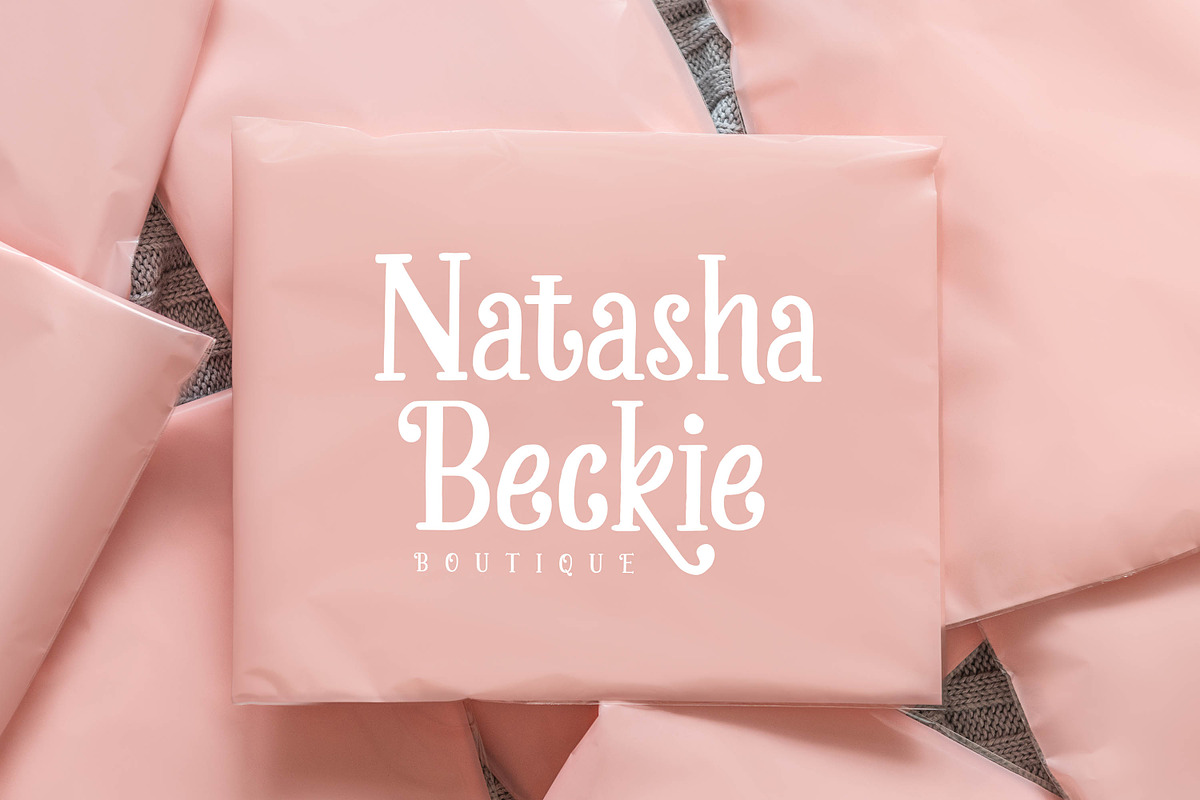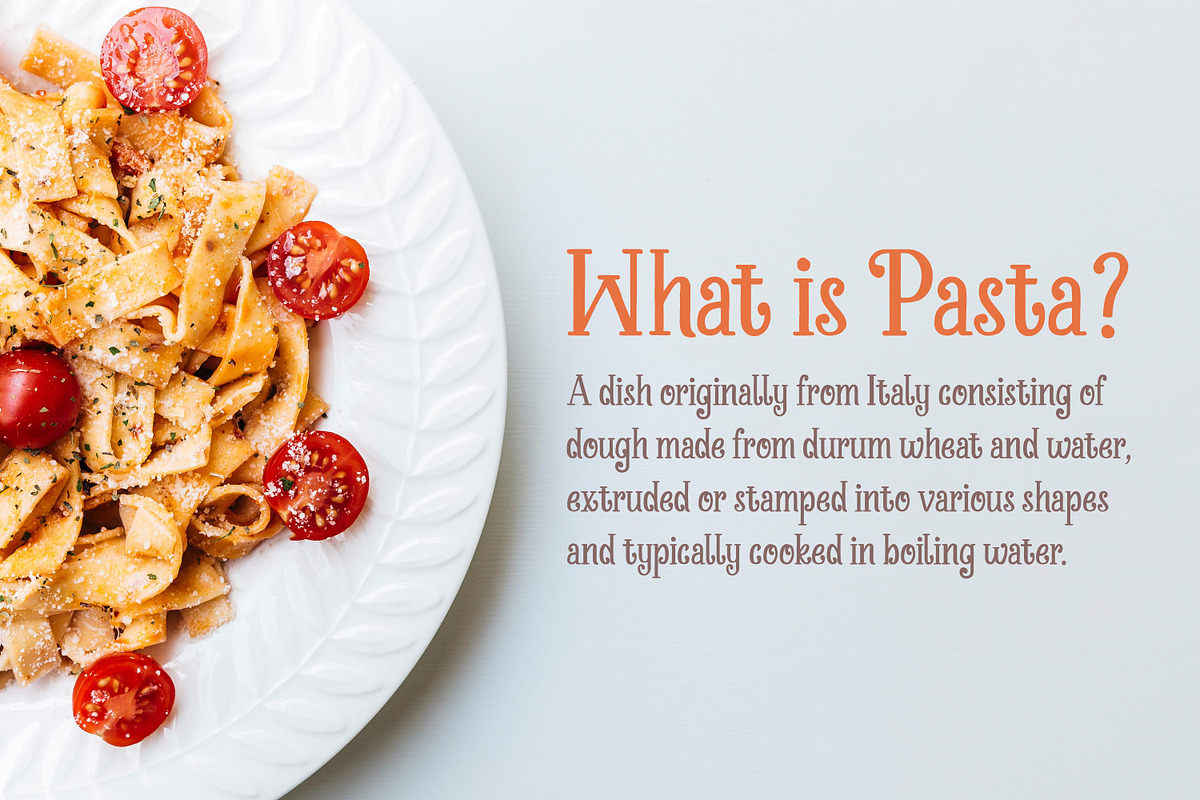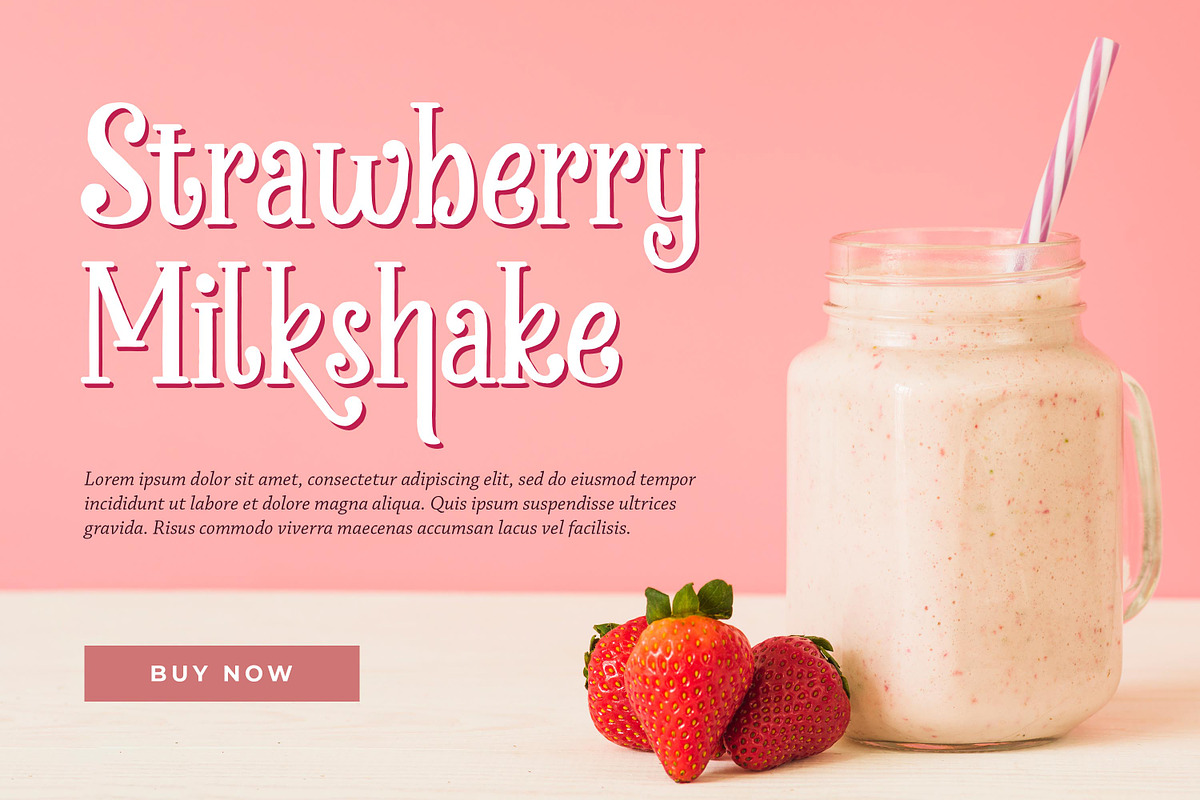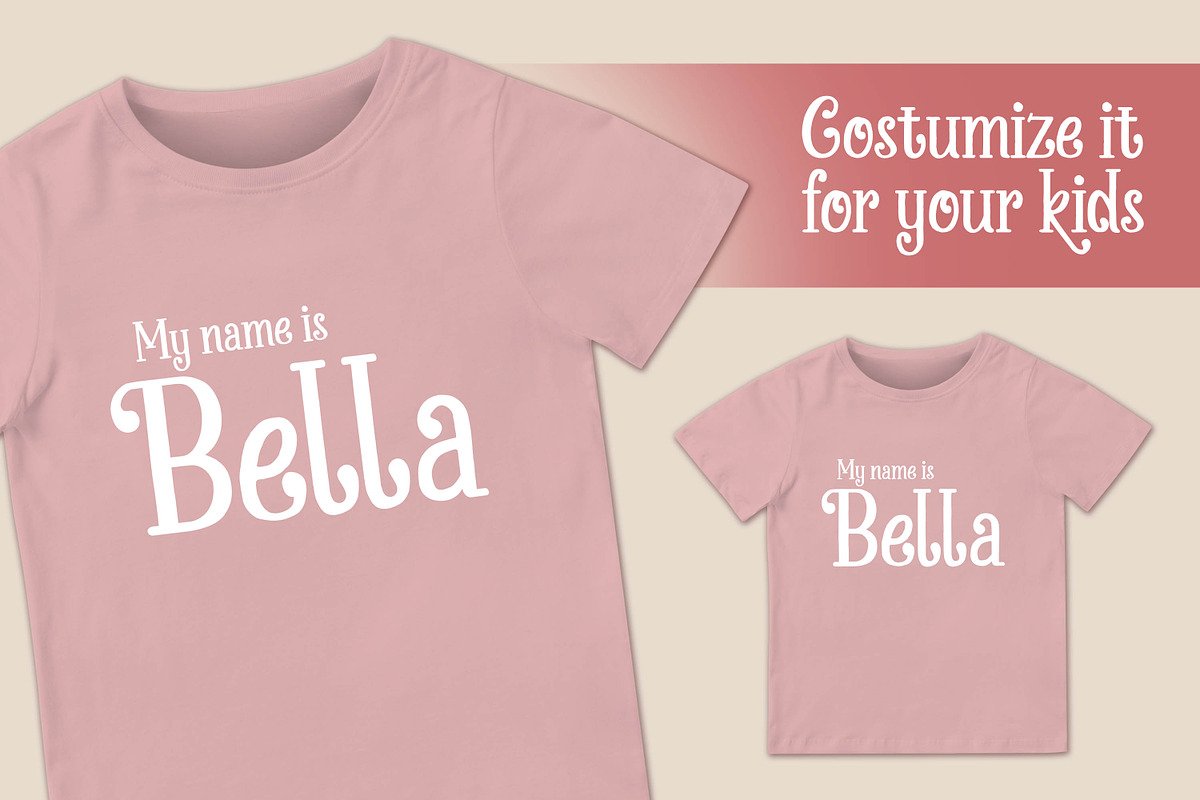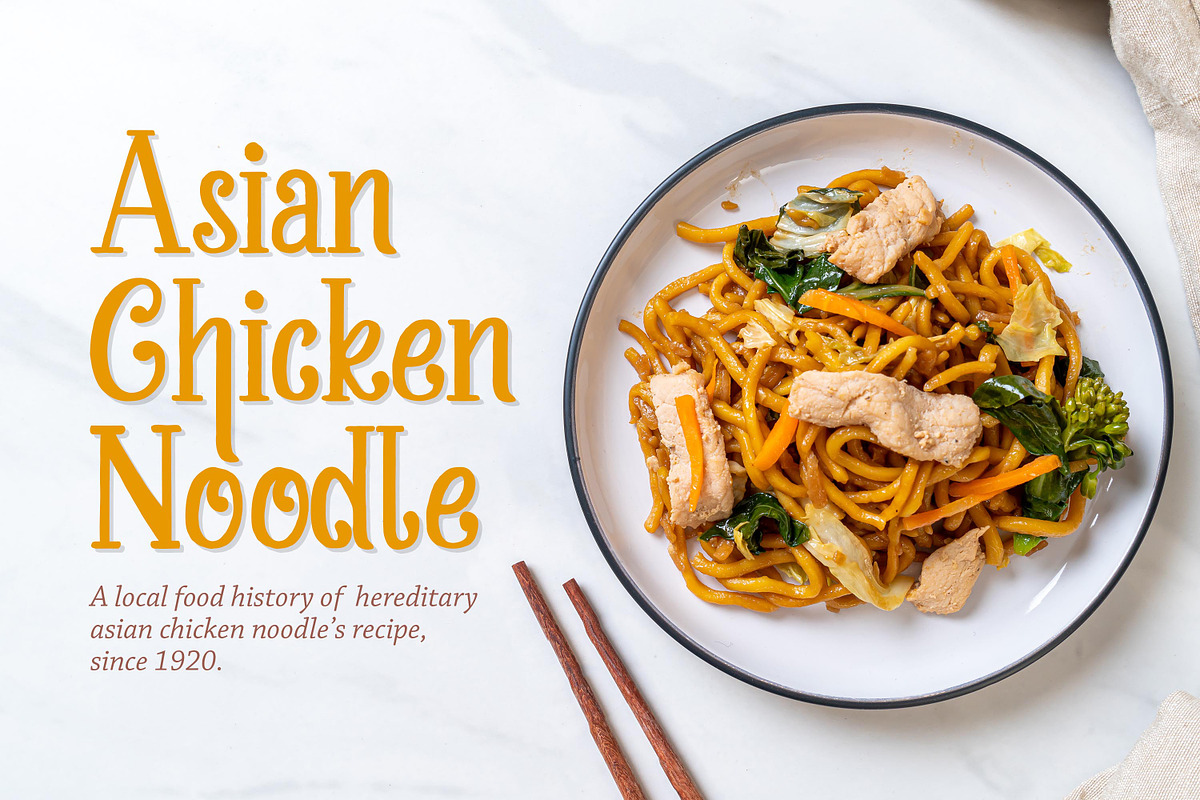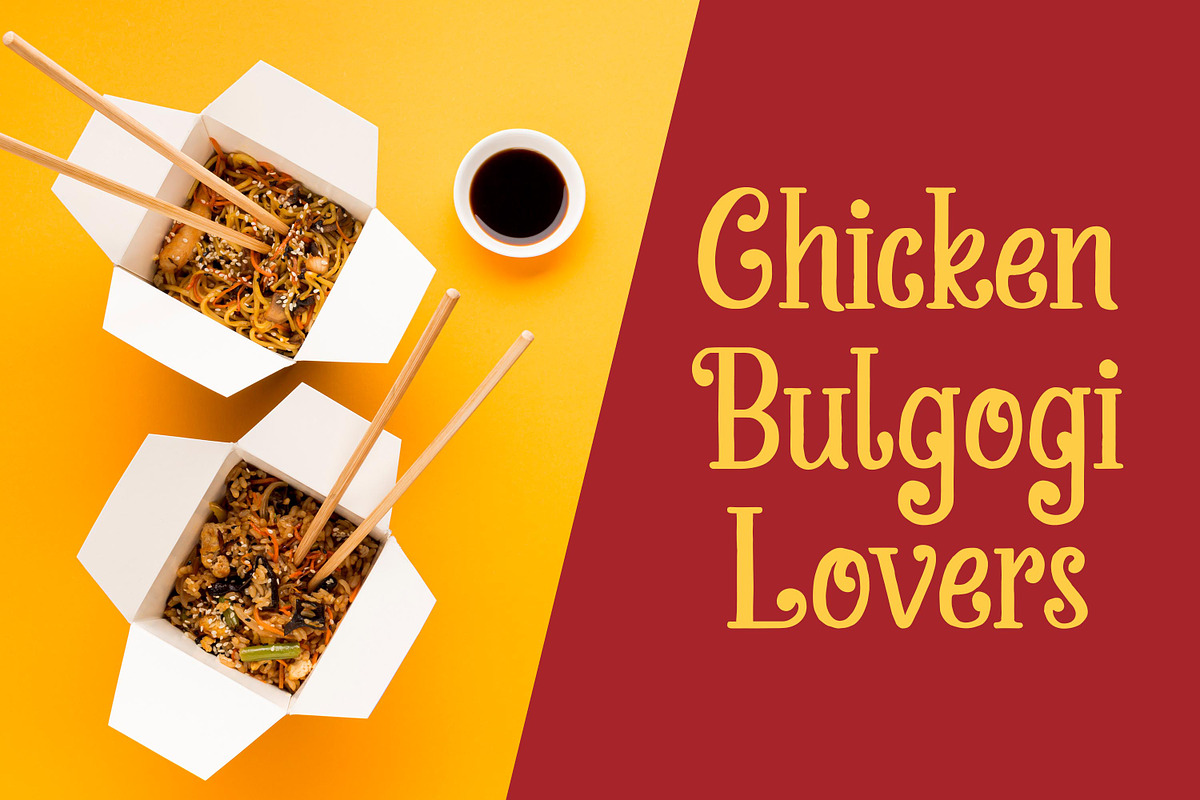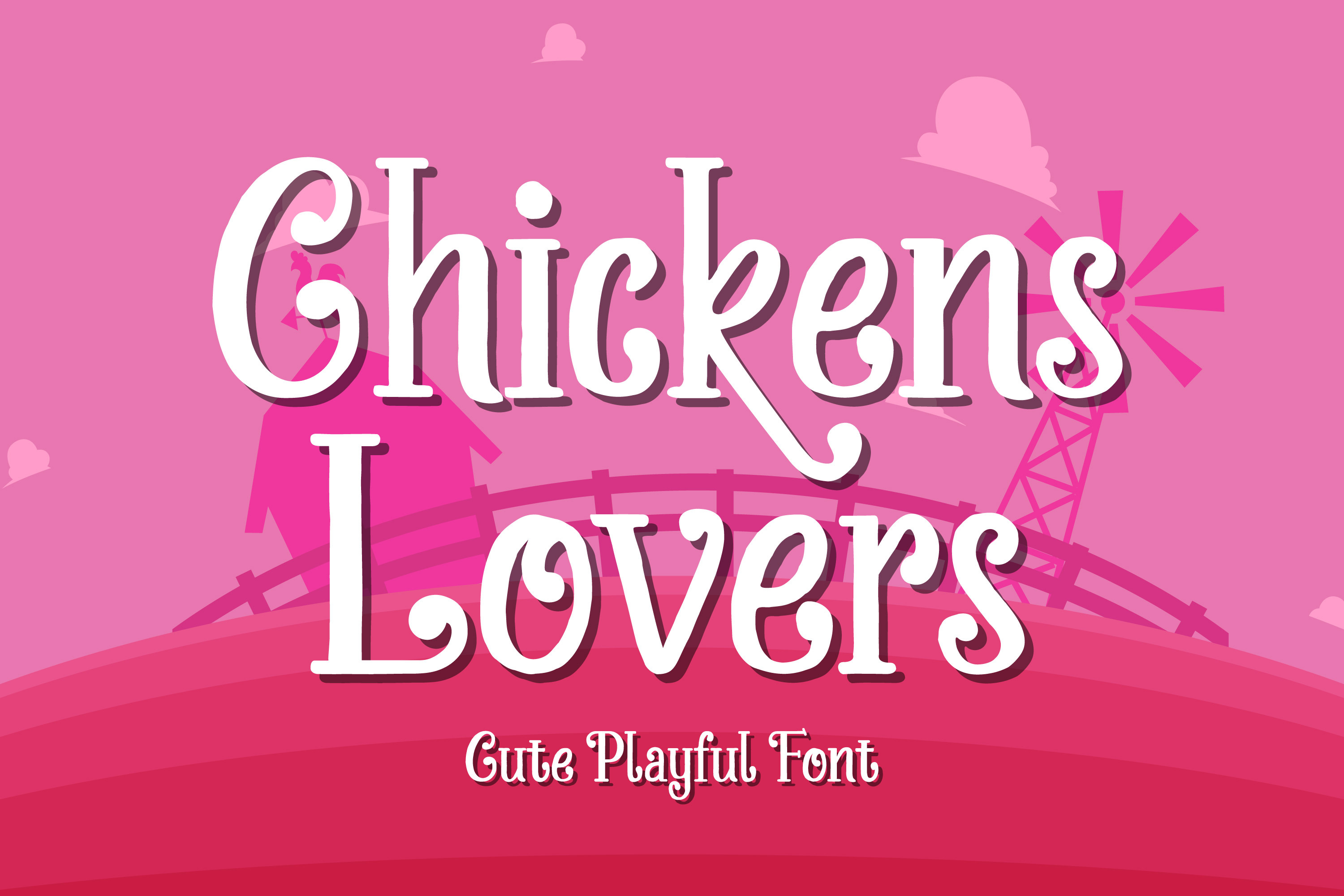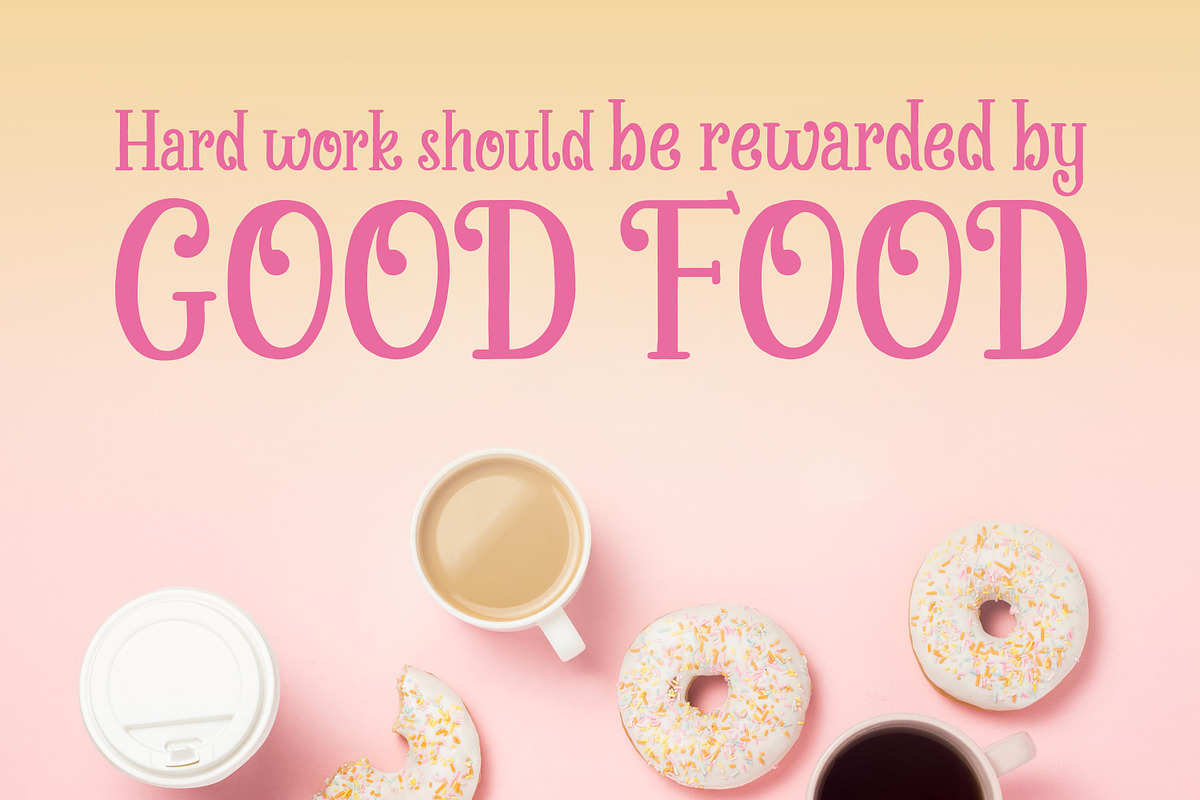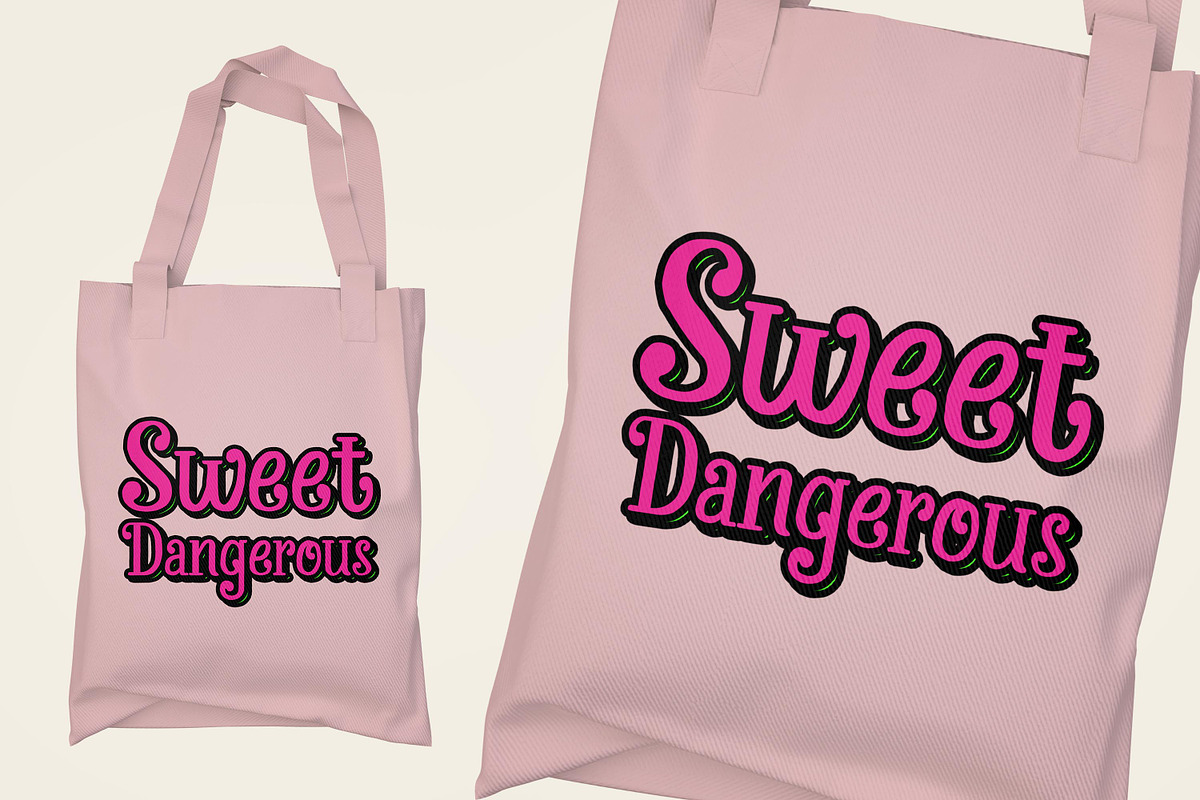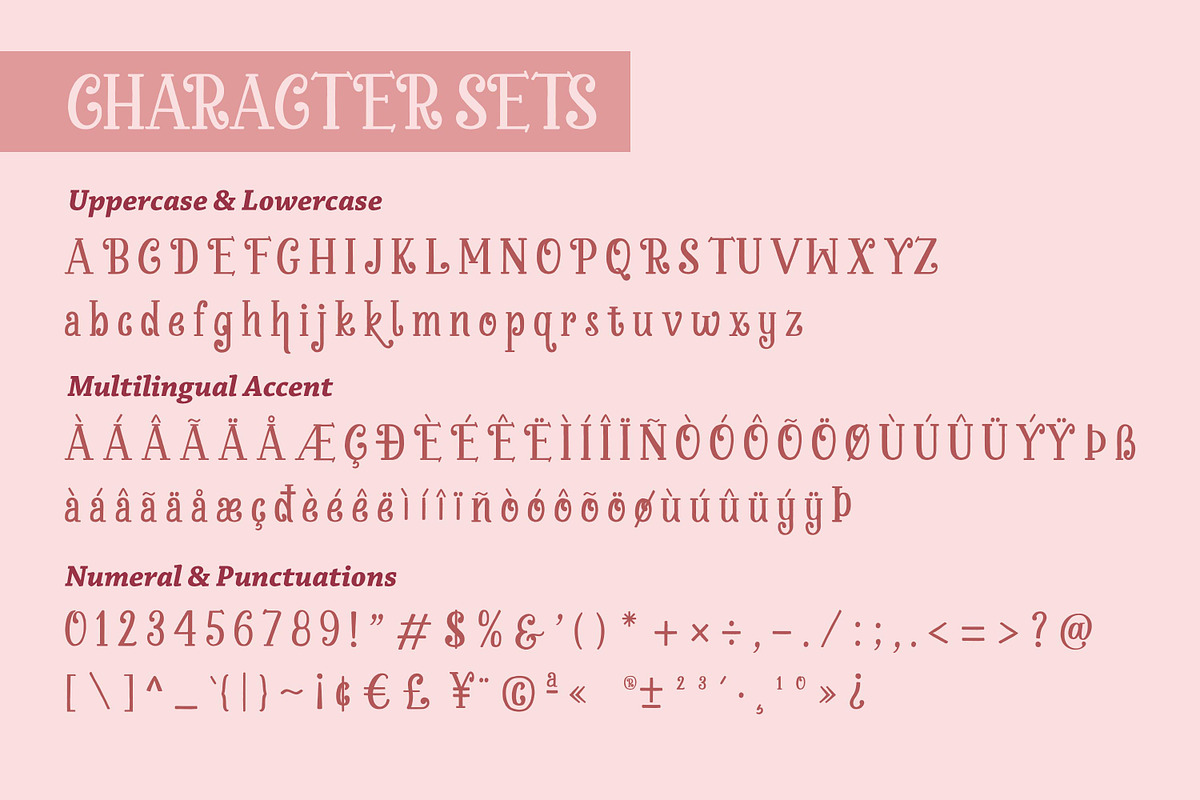
Chickens Lovers - Cute Playful Font
Chickens Lovers is a cute & playful display font that will make your designs look modern, unique and fun. It’s perfect for labels, quotes, posters, DIY projects, branding, packaging, greeting cards, websites, photography overlays, signs, window art, scrapbooking, tags and so much more!